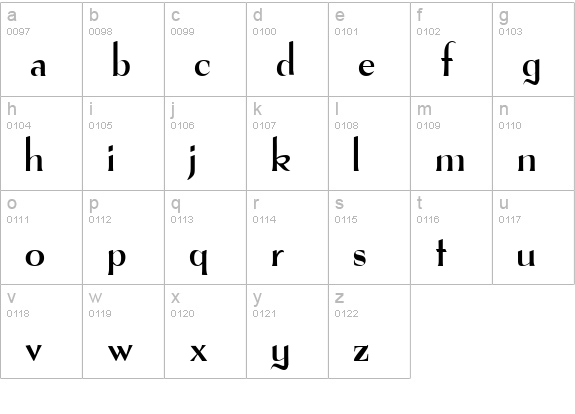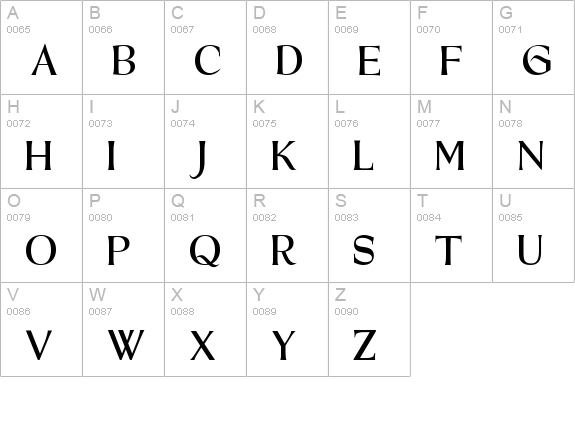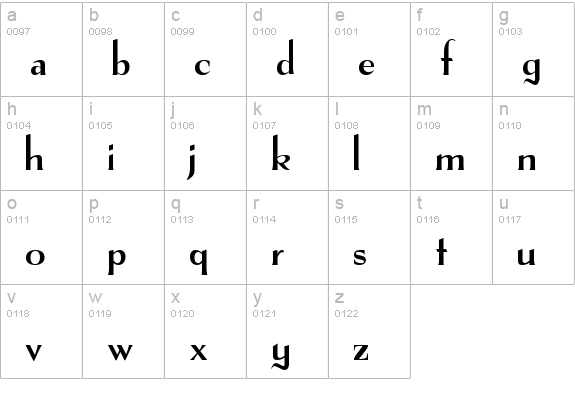
The Real Font Font Details
Introducing The Real Font, a stunning typeface that embodies authenticity and versatility. With its unique blend of contemporary and classic elements, this font is perfect for a wide range of design projects, from elegant branding to eye-catching headlines. The Real Font is meticulously crafted with attention to detail, resulting in a clean and crisp aesthetic that is sure to make your designs stand out. Its carefully balanced proportions and graceful curves give it a timeless appeal, while its modern twist adds a touch of sophistication. This font offers a wide variety of weights and styles, allowing you to experiment and create endless design possibilities. Whether you're looking for a bold and impactful statement or a subtle and sophisticated touch, The Real Font has got you covered. One of the best parts about The Real Font is that it is available for free! That's right, you can download this incredible font at no cost from FontsMarket.com. It's a fantastic opportunity to enhance your design projects without breaking the bank. So why wait? Get your hands on The Real Font today and experience the power of this exceptional typeface. Whether you're a professional designer or a creative enthusiast, this font is sure to become a valuable asset in your collection. Download it now and let your creativity soar.